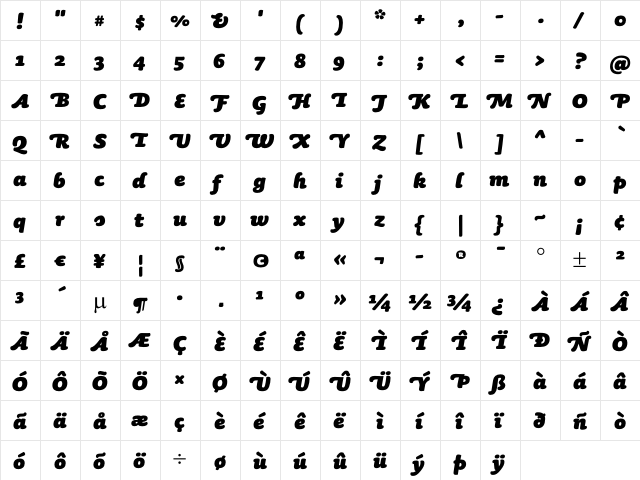
Sauna-BlackItalicSwash Regular
Design Context for Sauna-BlackItalicSwash Typeface
Sauna-BlackItalicSwash flows with the natural rhythm of handwritten lettering, making it ideal for designs that call for warmth and personal expression.
Font Pairing: Combine Sauna-BlackItalicSwash with a simple geometric sans for maximum contrast — the tension between flowing curves and clean structure is a classic typographic pairing.
Pro Tip: Use Sauna-BlackItalicSwash for short runs of text — names, titles, or taglines. Extended body copy in script faces tires the eye quickly.